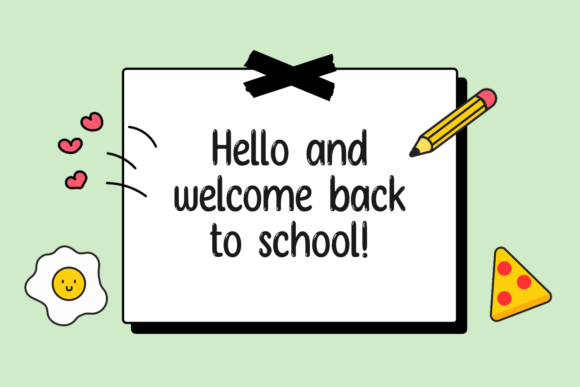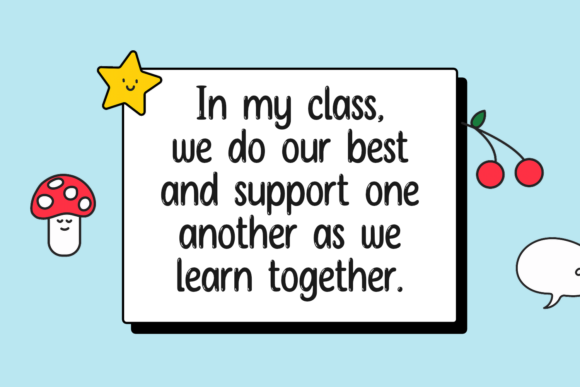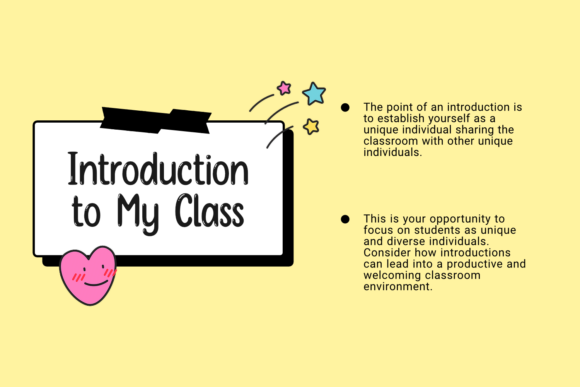
Introduction to Shiny Flakes Font
Shiny Flakes is a cute, simple and adaptable display font.
Add it to each of your party invitation, gathering or pretty much any design that requires a touch of youth and joy .